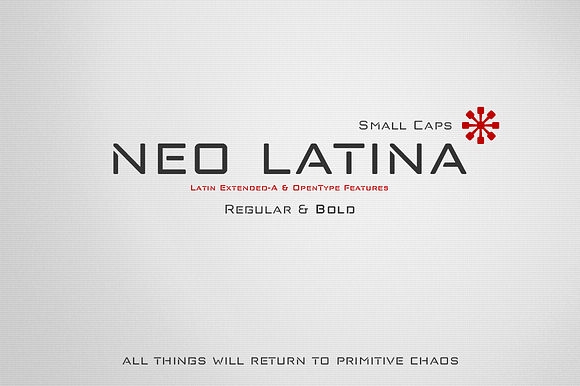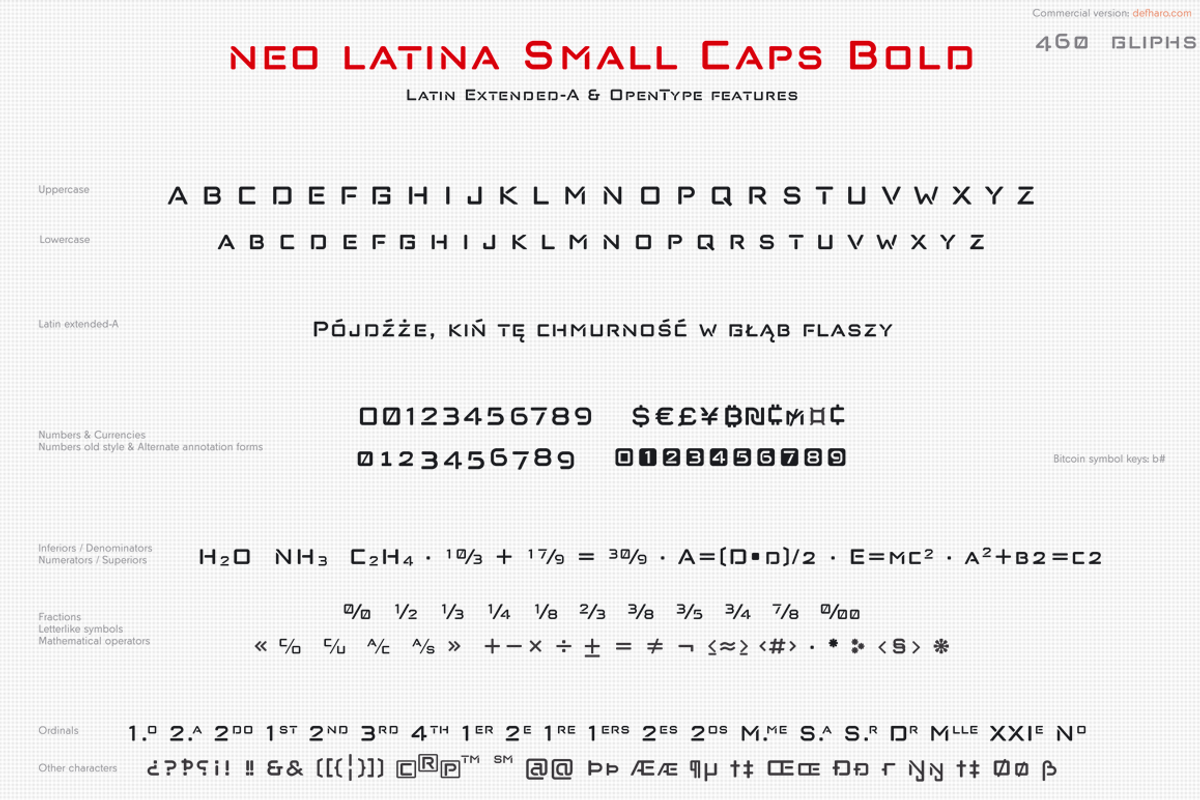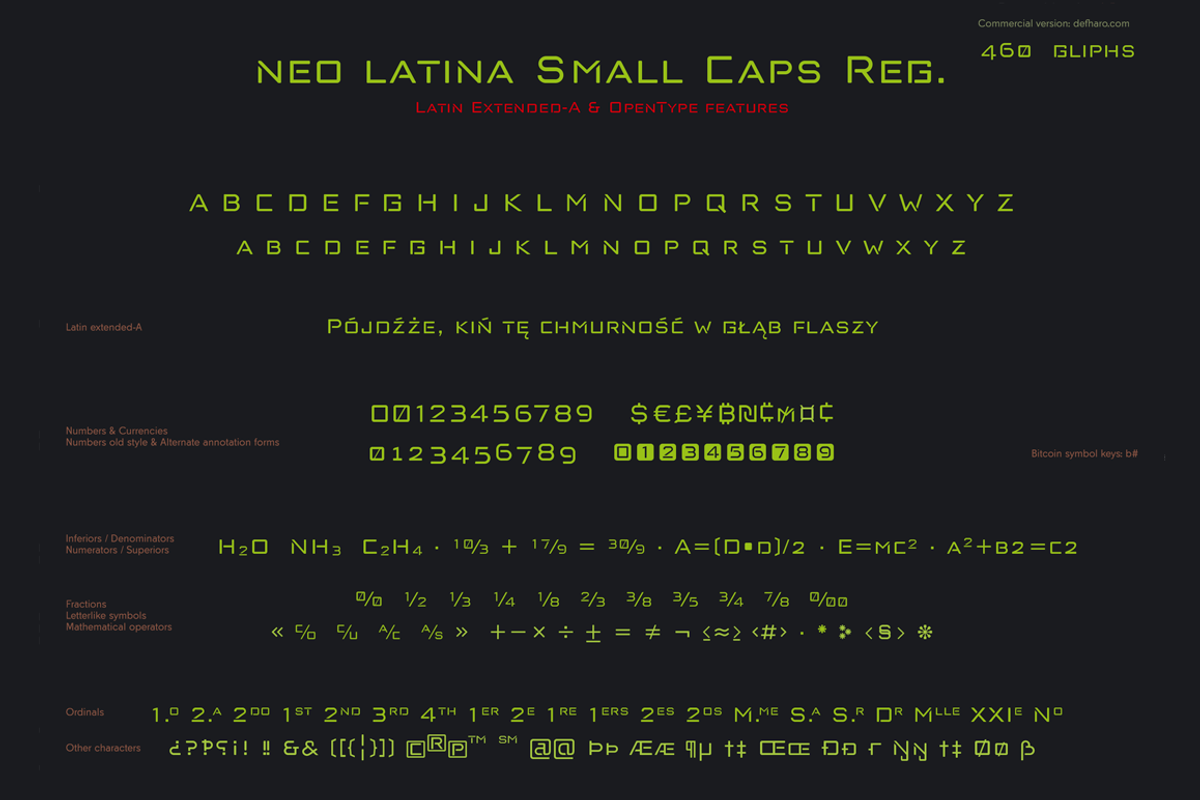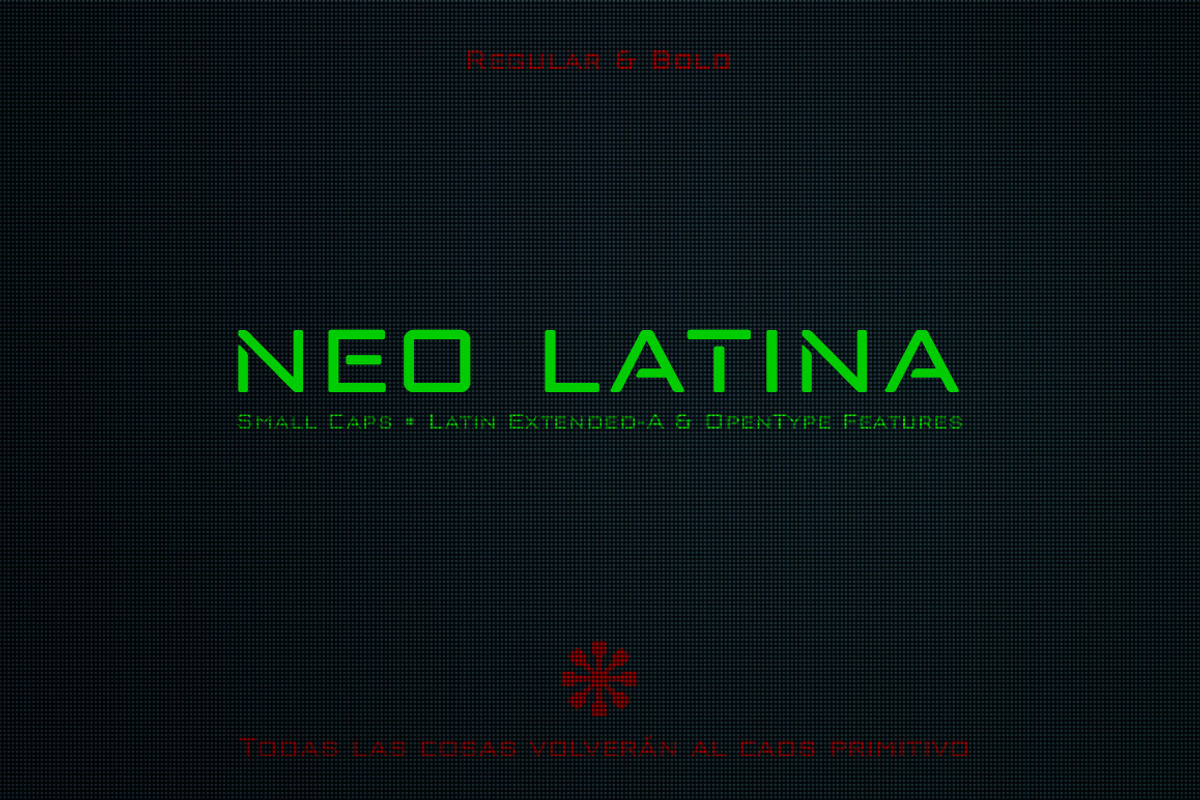
Neo Latina 2 fonts
• Neo Latina is a classic sans serif typography in small caps of square proportions and rectilinear character with the ends of the rounded horns and a semi-stencil design that gives a futuristic aspect and of science fiction.
• Neo Latina is the right heiress of geometric fonts from the early 20th century inspired by the Bauhaus school and is specially designed for use in any size for both screen and print.
• Neo Latina is a very versatile typography for graphic design, you can use it in advertising posters, video games, film titles, logos, editorial design, etc.
Two fonts: Regular & Bold
OpenType Functions: Subscript, Additional languages, Alternate Annotation Forms, Capital Spacing, Denominators, All Alternates, Oldstyle Figures, Superscript, Superiors, Superior letters, Standard Ligatures, Kerning, Extended Fractions, Small Capitals, Historical Forms, Inferiors, Fractions, Localized Forms, Numerators, Ordinals, Discretionary Ligatures, Scientific Inferiors, Slashed Zero.
Bitcoin & chaos symbol: b# - a#(ligatures)